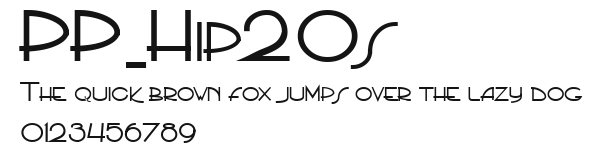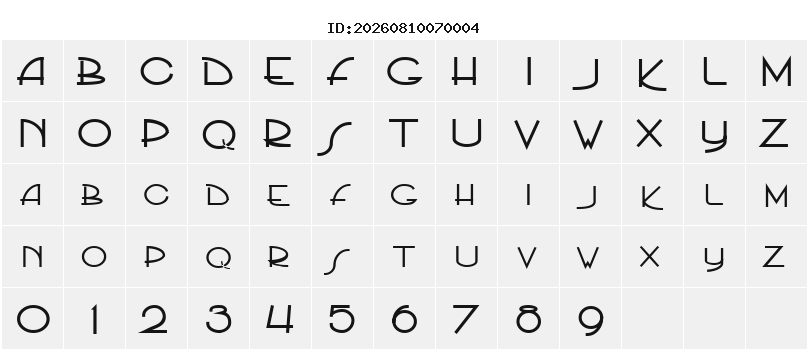
PP_Hip20s Preview
• Font Name: PP_Hip20s
• Full Font Name: PP_Hip20s
• Character Count: 85
About PP_Hip20s.ttf
PP_Hip20s.ttf is a modern, elegant sans-serif font designed for ultimate readability and visual harmony. Perfect for branding, headlines, web design, and print materials.